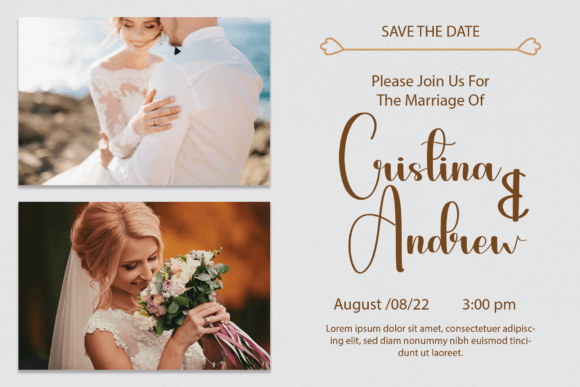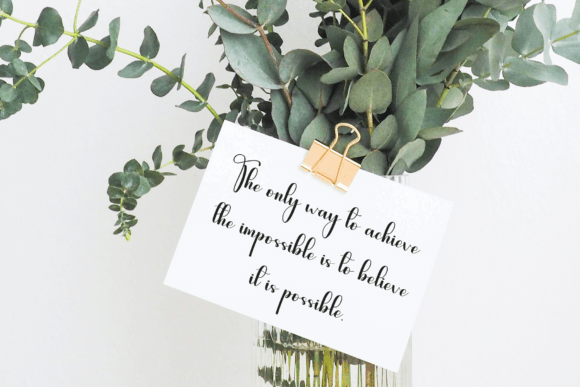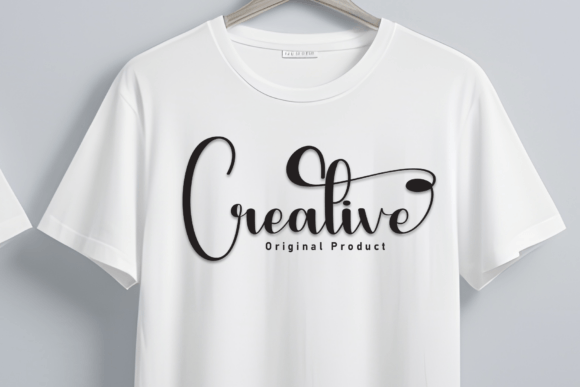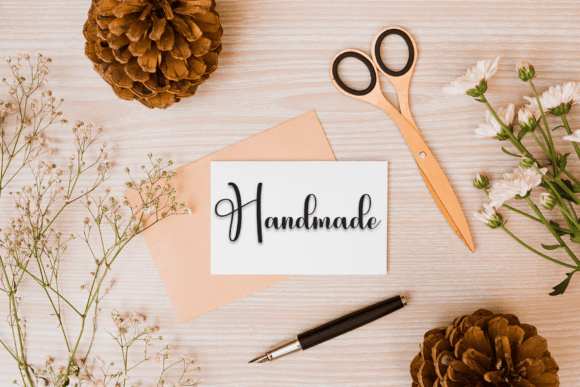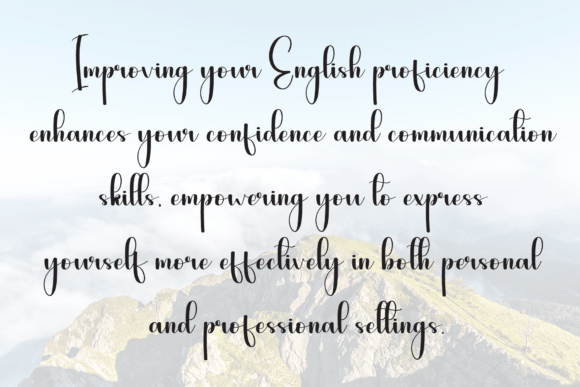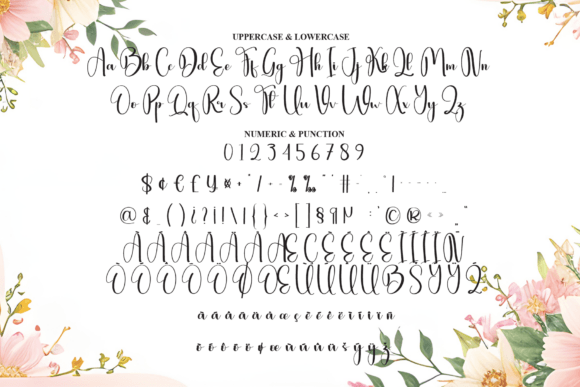
Discover the Elegance of Belastine Font: A Stylish Handwritten Script Font
In the world of typography, a good font can make all the difference in creating a lasting impression. For designers and crafters looking to add a touch of sophistication and charm to their work, Belastine font is an excellent choice. This stylish handwritten script font is designed to exude elegance and warmth, making it perfect for a variety of creative projects.
The Characteristics of Belastine Font
Belastine font is characterized by its fluid strokes and natural flow, which create a captivating and sophisticated look. The font’s handwritten script style gives it a personal and intimate feel, making it ideal for adding a touch of warmth to any design. Whether you’re working on invitations, branding, or social media graphics, Belastine font is sure to bring a sense of elegance and refinement to your work.
Uses of Belastine Font
One of the best things about Belastine font is its versatility. Its stylish and elegant design makes it suitable for a wide range of applications, including:
- Invitations: Add a touch of sophistication to your wedding invitations, birthday party invites, or any other special occasion with Belastine font.
- Branding: Use Belastine font to create a unique and memorable brand identity for your business or product.
- Social Media: Make your social media graphics stand out with the elegant and refined look of Belastine font.
- Stationery: Add a personal touch to your stationery, such as notebooks, journals, or greeting cards, with Belastine font.
Why Choose Belastine Font?
With so many fonts available, why choose Belastine font? Here are just a few reasons why designers and crafters love this stylish handwritten script font:
- Elegance: Belastine font exudes elegance and sophistication, making it perfect for high-end designs.
- Warmth: The font’s handwritten script style gives it a warm and personal feel, making it ideal for designs that require a touch of personality.
- Versatility: Belastine font is suitable for a wide range of applications, from invitations to branding and social media.
- Easy to Read: Despite its elegant and refined look, Belastine font is easy to read, making it perfect for body text and headlines.
Tips for Using Belastine Font
To get the most out of Belastine font, here are a few tips to keep in mind:
- Pair with Other Fonts: Belastine font pairs well with other fonts, such as sans-serif fonts, to create a striking contrast.
- Use for Headlines: Belastine font is perfect for headlines and titles, where its elegant and refined look can shine.
- Add Texture: Add texture to your design by layering Belastine font over a background image or texture.
- Experiment with Colors: Don’t be afraid to experiment with different colors to find the perfect match for your design.
In conclusion, Belastine font is a stylish handwritten script font that exudes elegance and charm. Its fluid strokes and natural flow create a captivating and sophisticated look, making it perfect for adding a personal touch to invitations, branding, or social media. With its versatility, elegance, and warmth, Belastine font is an excellent choice for designers and crafters looking to elevate their designs. So why not give Belastine font a try and see the difference it can make in your next creative project?